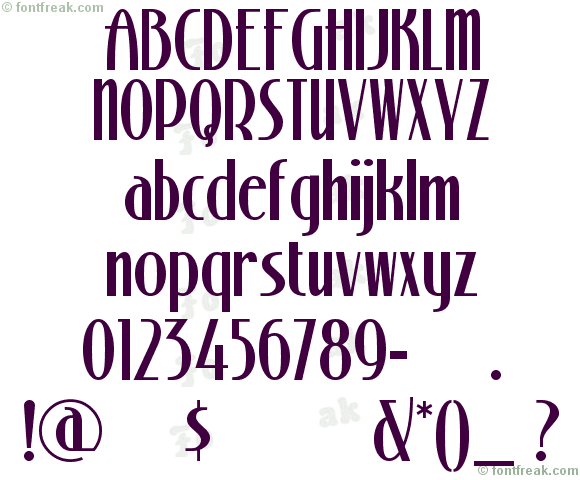
StonyIslandNF
StonyIslandNF, designed by Nick Curtis in 2002, is a striking display font that captures attention with its unique visual style. This font falls into the category of decorative typefaces, characterized by its bold, stylized letterforms. The strokes are thick and uniform, providing a strong presence while maintaining a sense of elegance. The contrast between the heavy strokes and the subtle curves in the characters adds depth, making it visually appealing. The spacing is well-balanced, ensuring readability even in larger formats, while the decorative elements introduce a playful flair that enhances any design.
StonyIslandNF is an excellent choice for a variety of applications. It shines in wedding invitations, where its distinctive look can add a touch of sophistication. Additionally, it is perfect for movie posters, offering a dramatic effect that captures the essence of cinematic storytelling. Restaurant menus can benefit from its bold presence, enticing diners with visually engaging typography. Moreover, content creators looking to make a statement in their social media graphics will find this font to be an ideal match for eye-catching designs.
The target audience for StonyIslandNF includes graphic designers, small business owners, and content creators who seek to elevate their projects with unique typography. This font is particularly appealing to those who appreciate a balance of boldness and elegance in their designs.